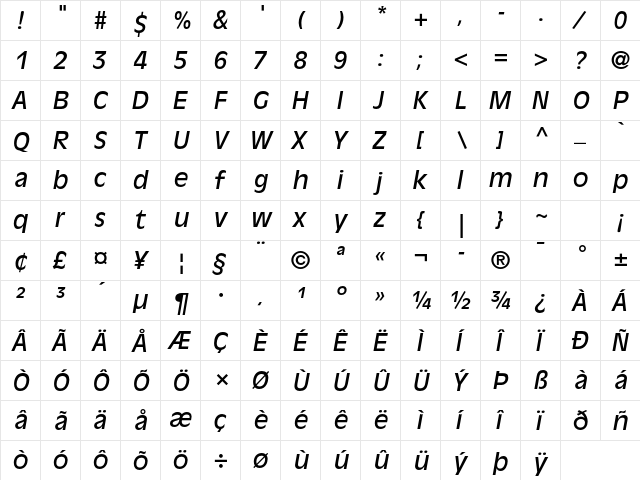
Antique Olive Std Italic
| Designer | Roger Excoffon |
Design Context for Antique Olive Std Typeface
Antique Olive Std has the warm character of retro typography — evoking diners, record sleeves, and the golden age of print advertising. Its italic angle brings a sense of urgency and motion to the letterforms.
Font Pairing: Combine Antique Olive Std with a simple slab or neutral sans — period-accurate companions reinforce the vintage feel without competing for attention.
Pro Tip: Lean into Antique Olive Std's period character by pairing it with aged paper textures, muted colour palettes, and vintage illustration styles.